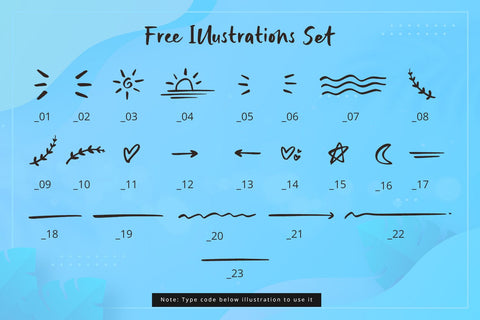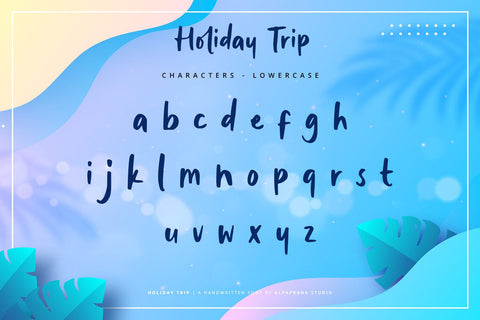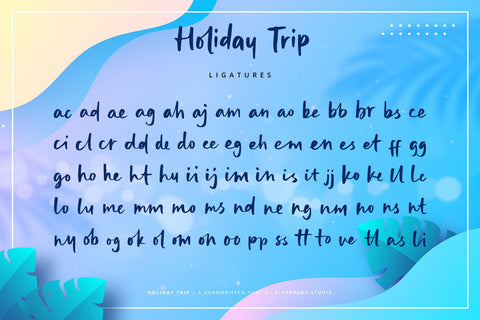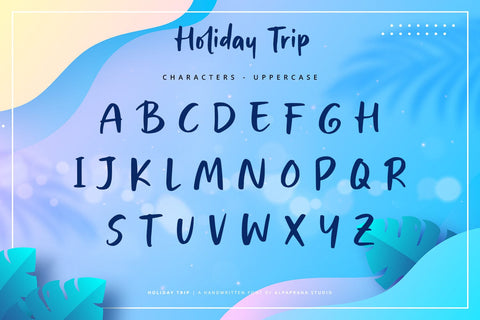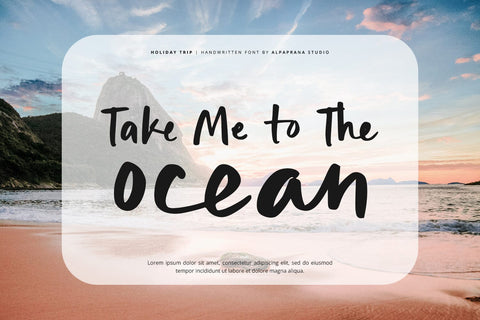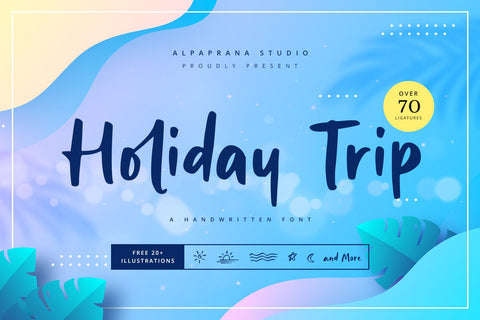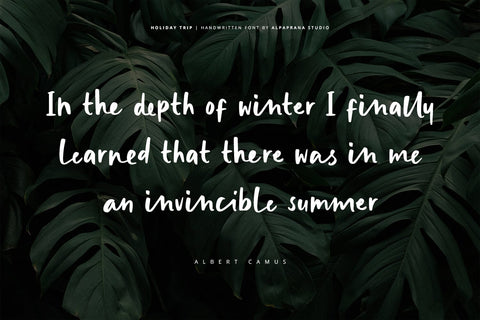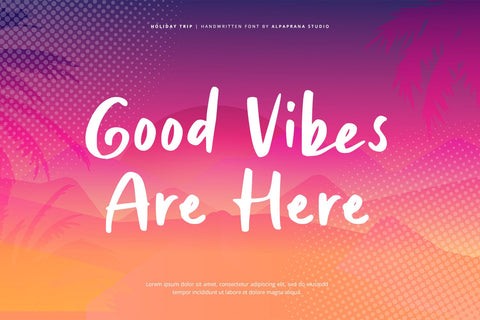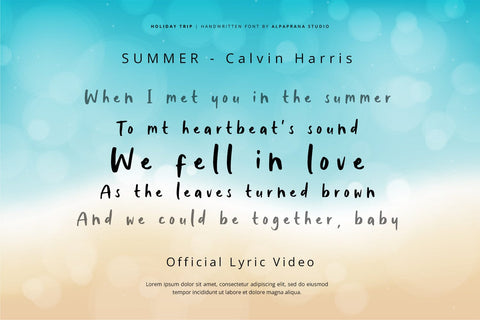
Holiday Trip - Handwritten Font
Holiday Trip is a handwritten font with authentic and playful feels. It will be perfectly used for Branding, Logo Design, Lettering, Logotype, Clothing, Poster, magazine, packaging, posters, shopping bags, t-shirts, book covers, photography, special events and other design project.